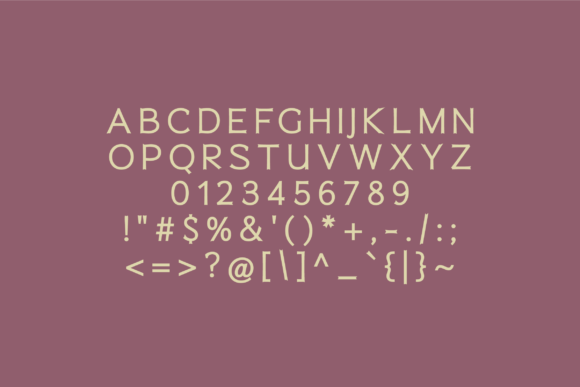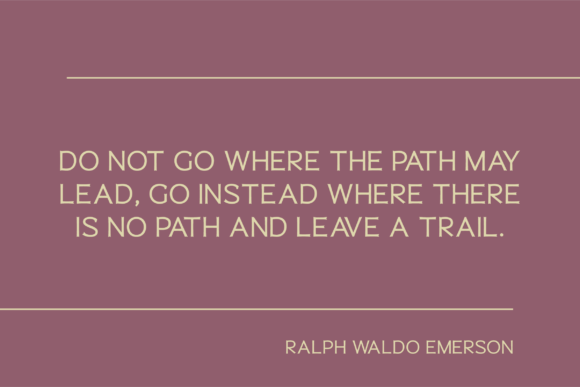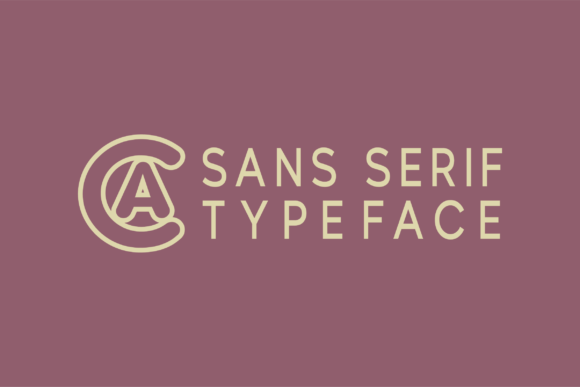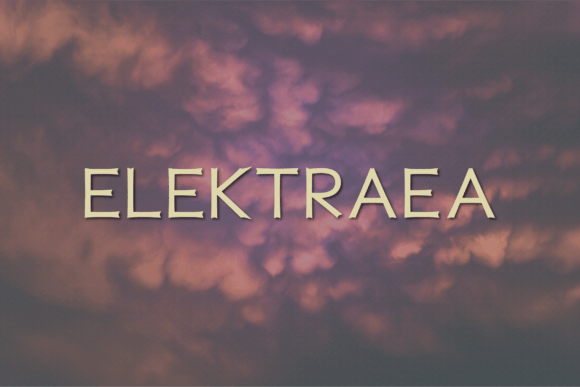
Introduction to Elektraea Font
Meticulously crafted and stylishly exquisite, Elektraea is a contemporary sans serif typeface that exudes sophistication.
A model of versatility, Elektraea effortlessly blends functionality and design This handcrafted typeface features a complete suite of uppercase characters, numerals from 0-9 along with a wide selection of punctuation and symbols.